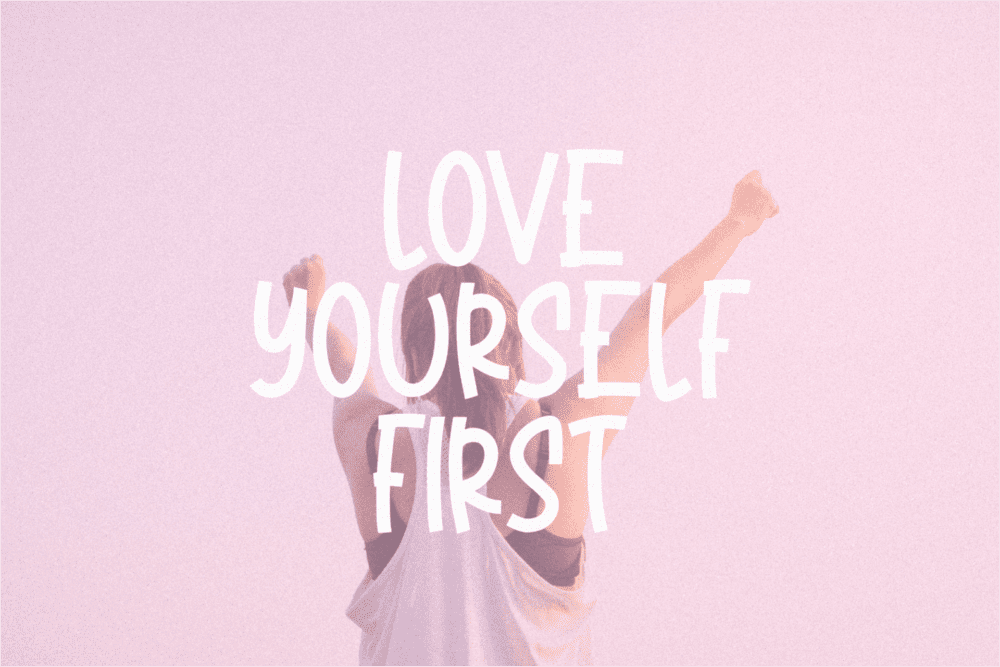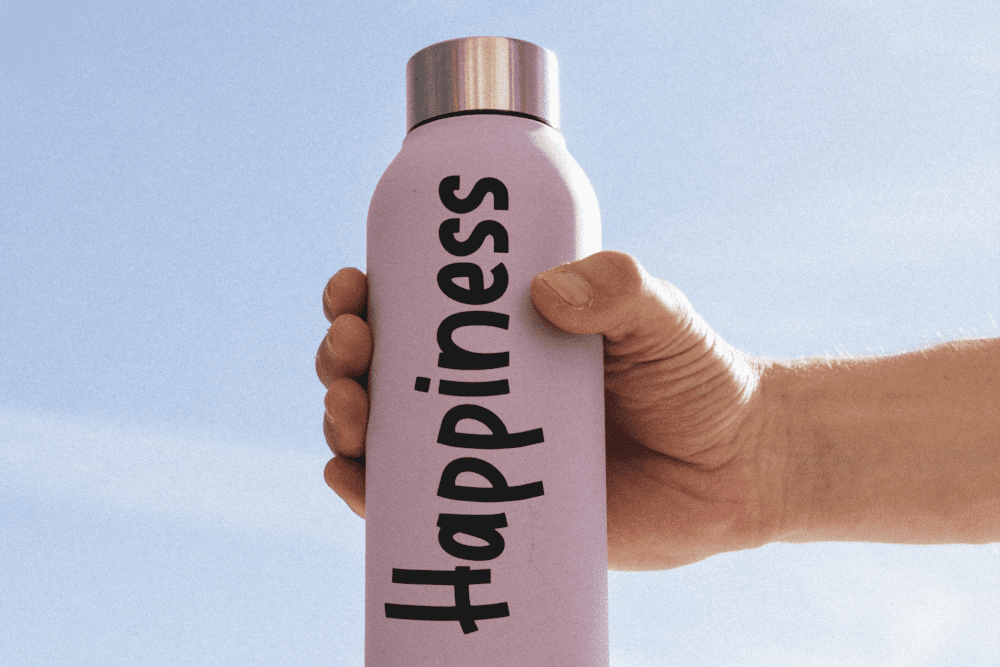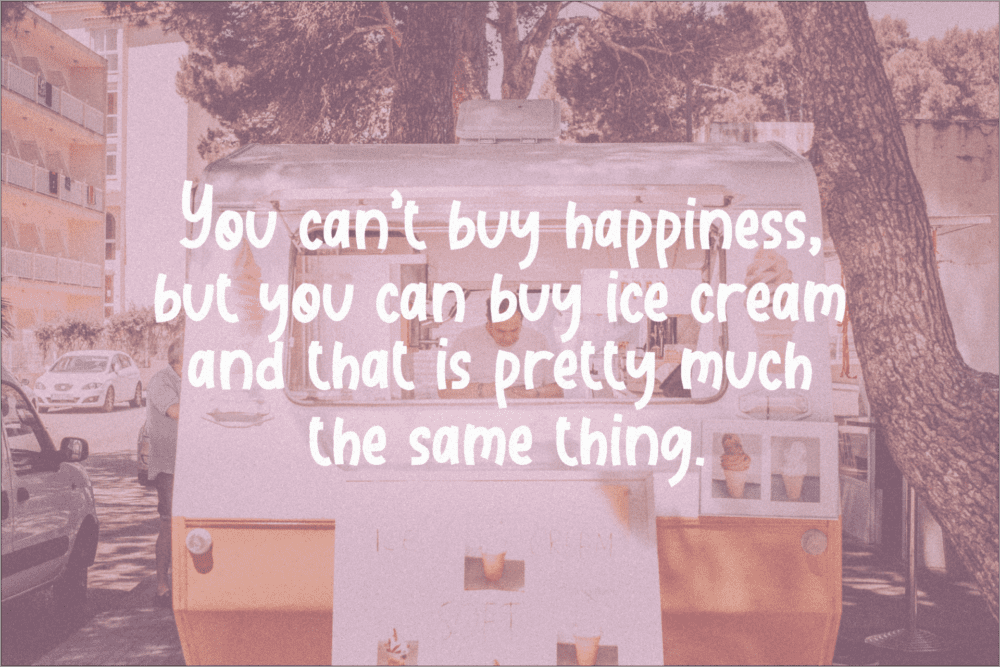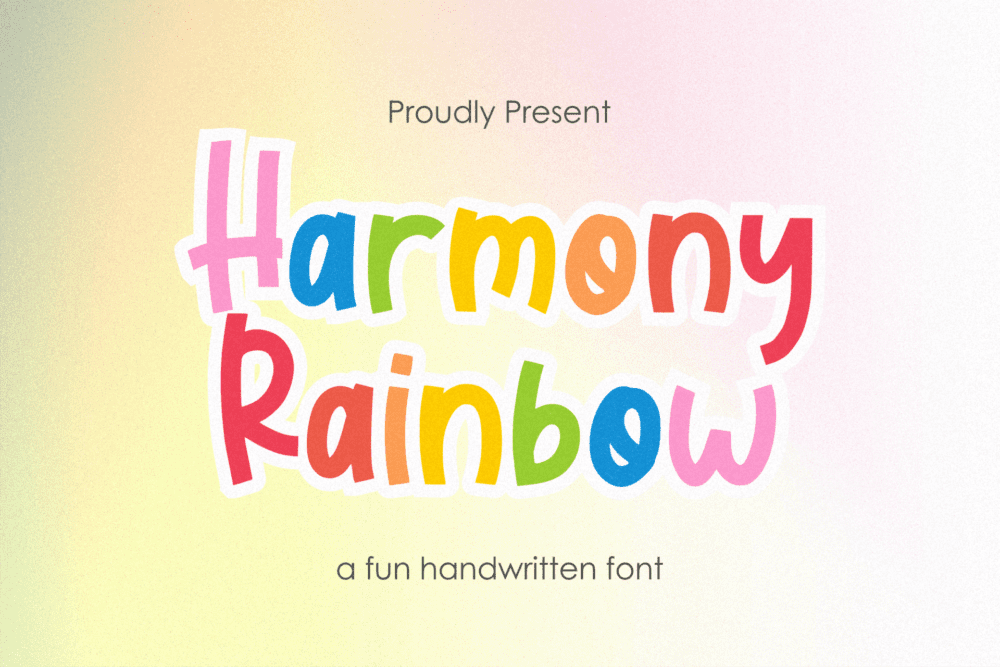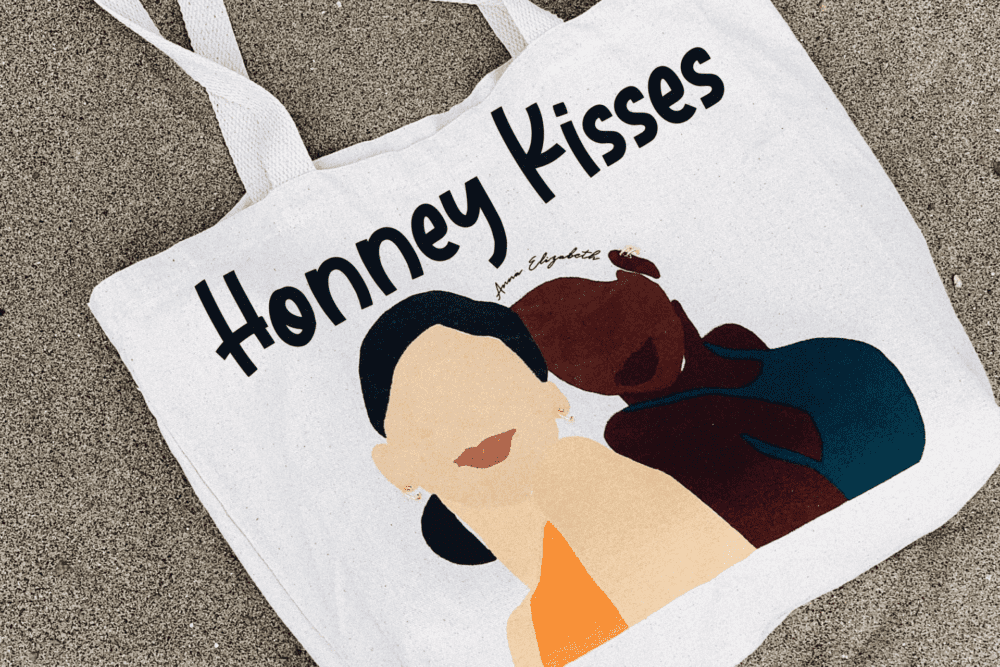
Harmony Rainbow Font
Harmony Rainbow is a fun handwritten font style. Harmony Rainbow is perfect for product packaging, branding project, magazine, social media, weddings, or just used to express words above the background.